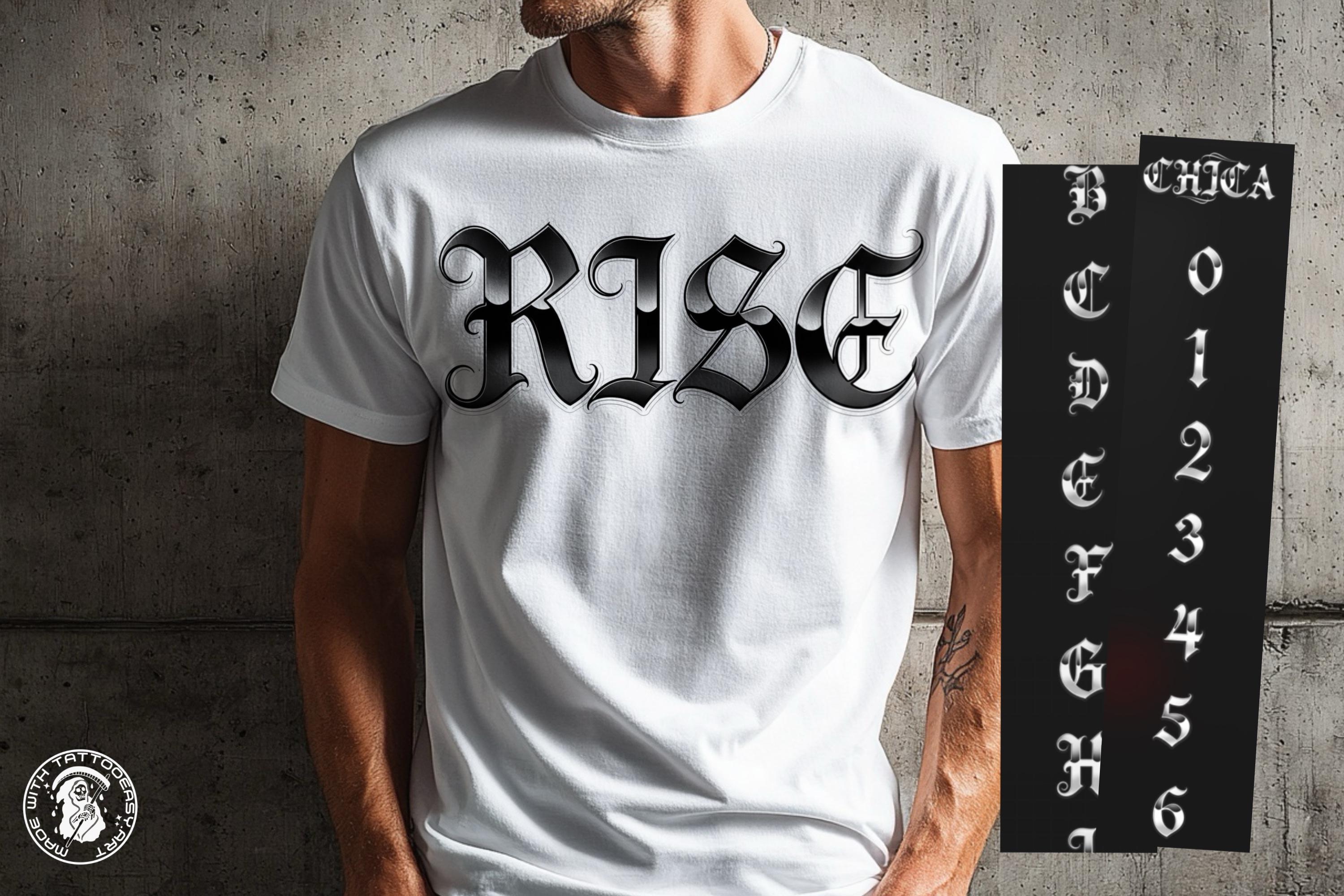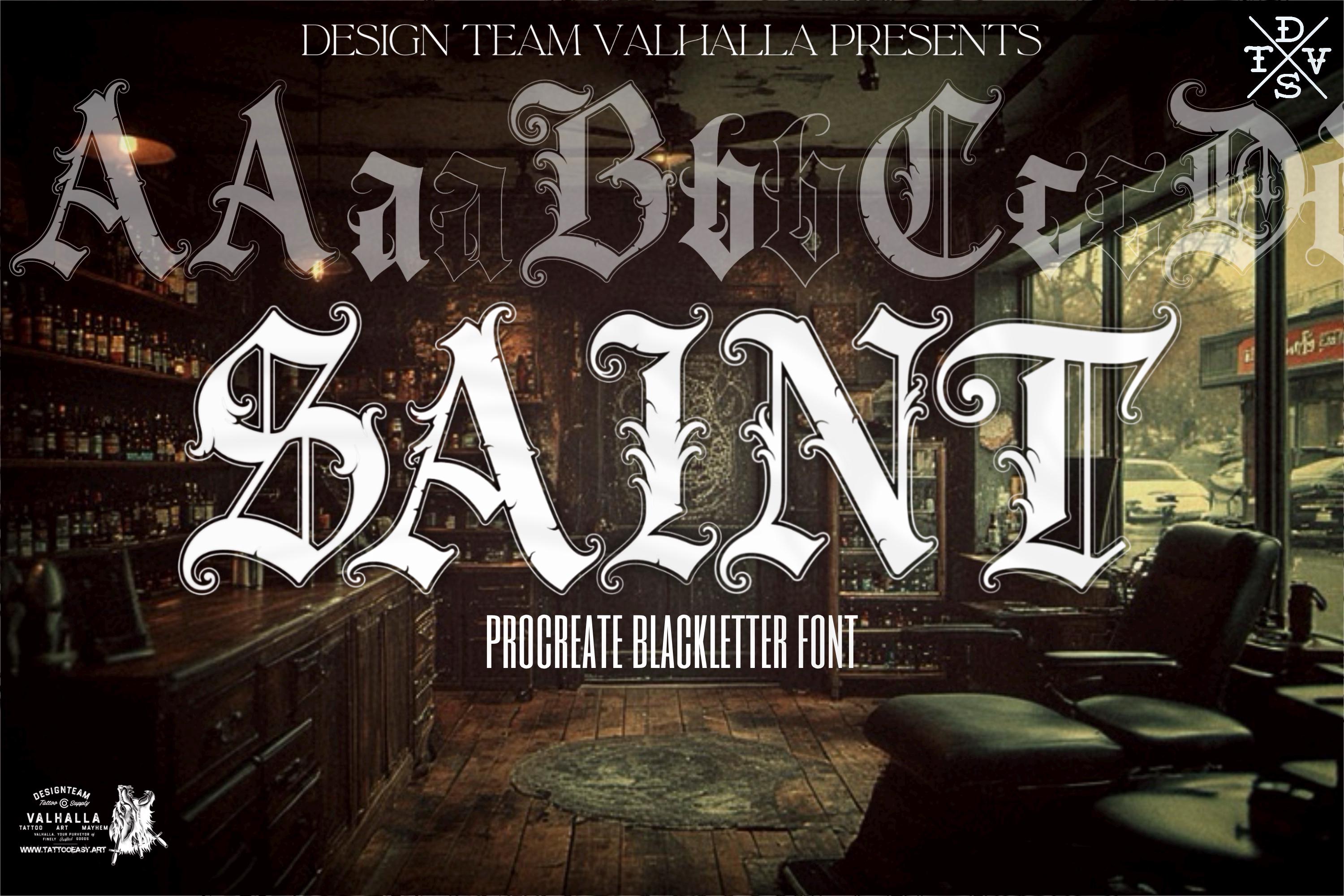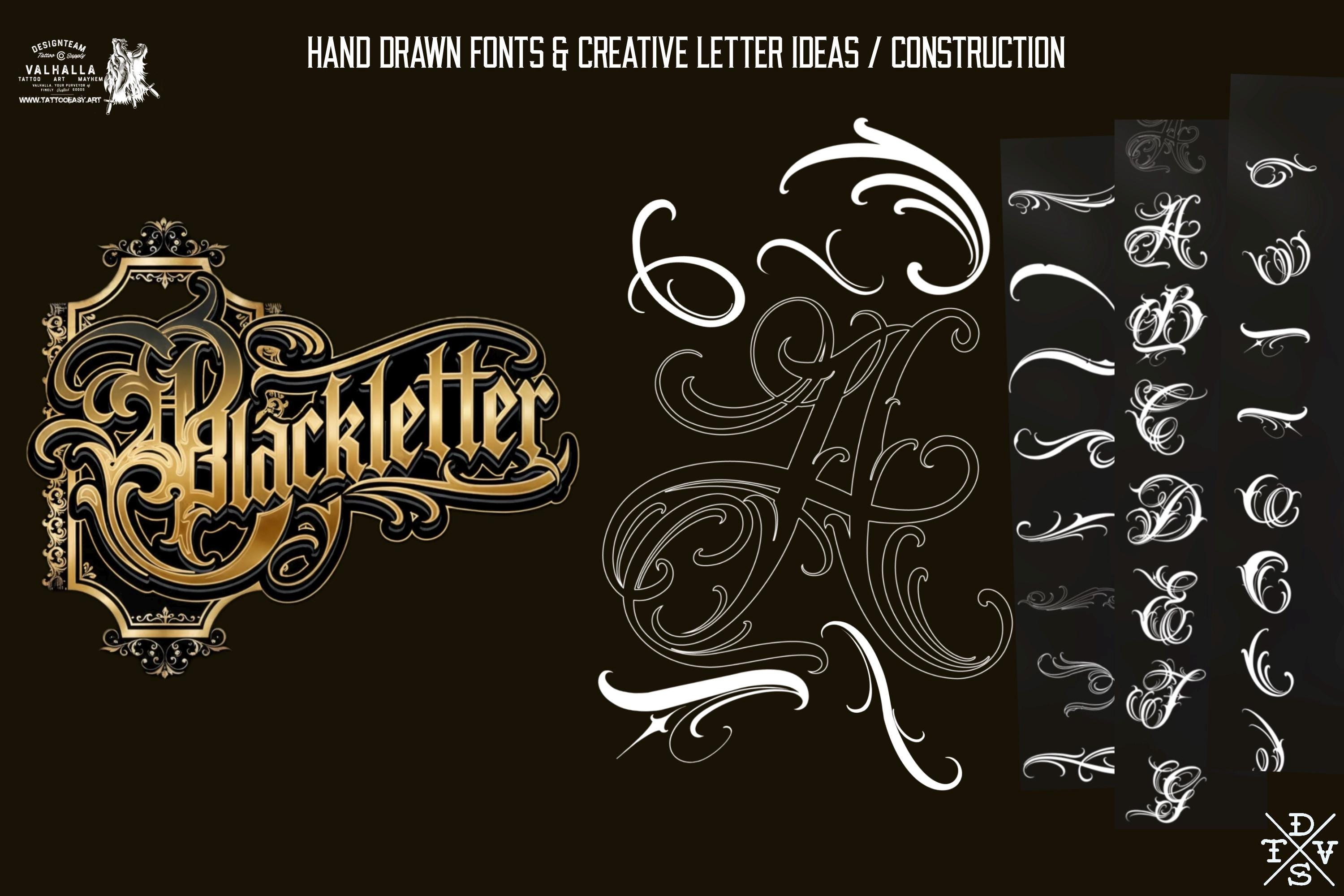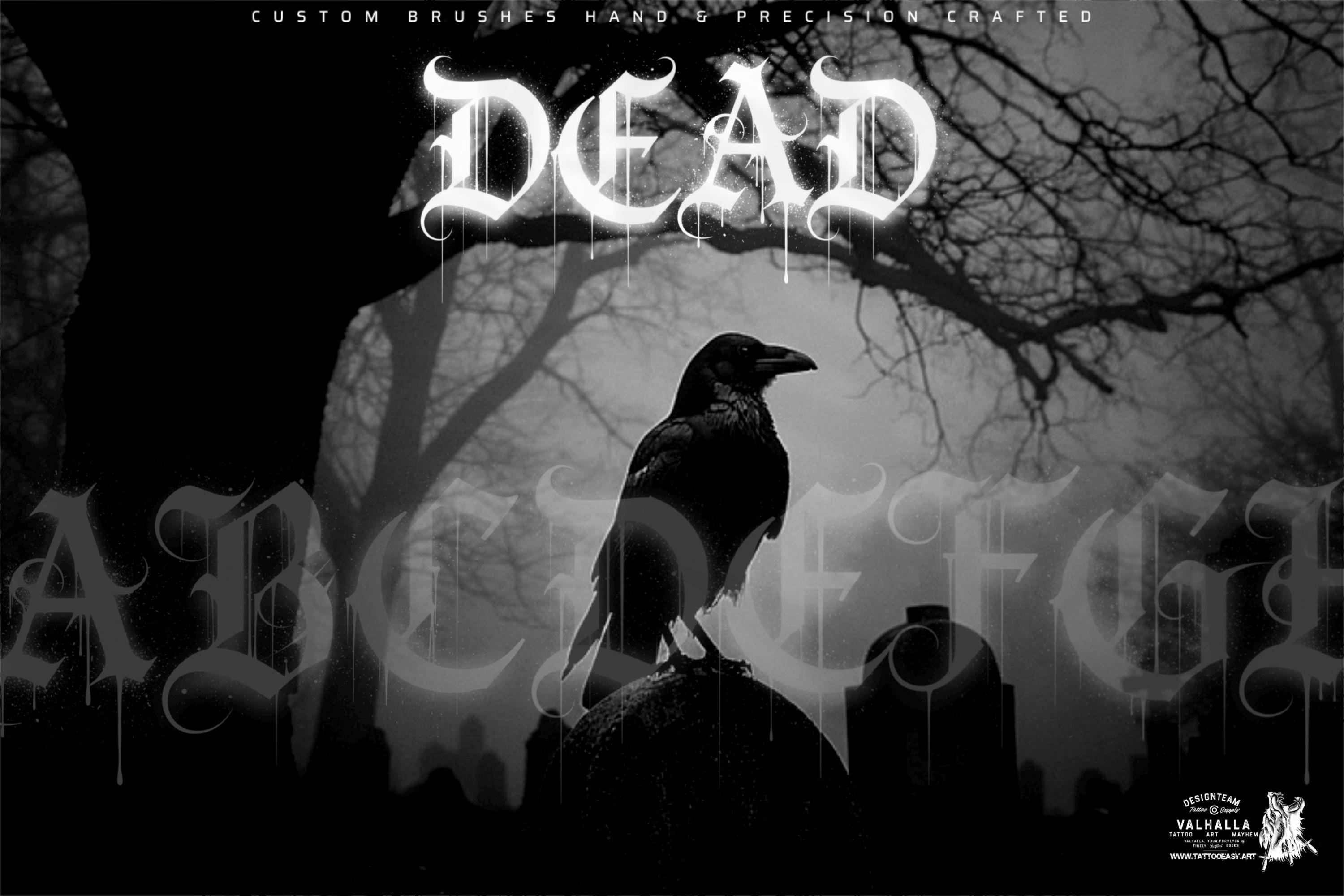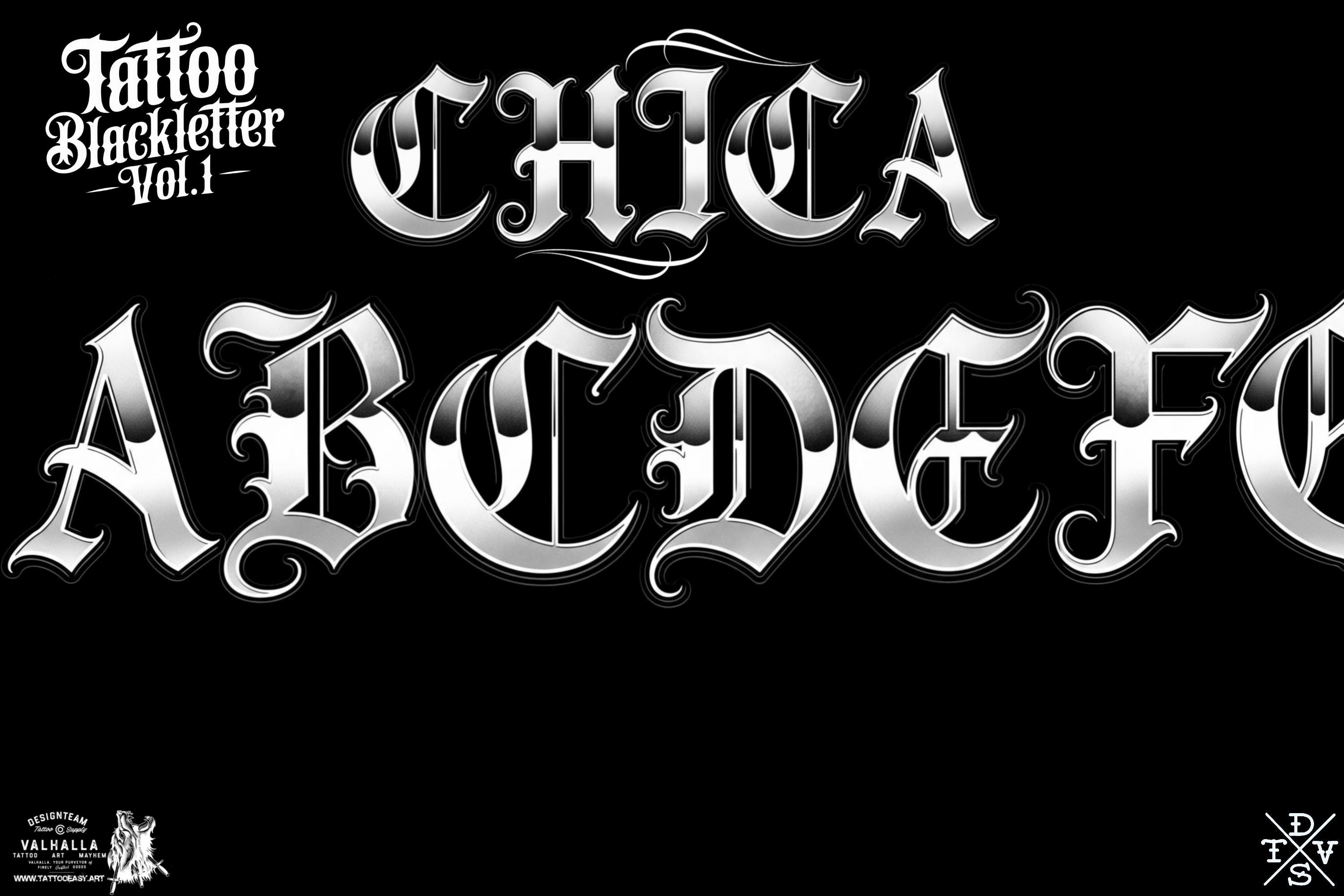
8 tattoo fonts, creative kit & text designs, Procreate Blackletter Stamps: Artists Lettering Bundle
Blacklettering for Procreate Vol.1 by @onI.Letterz - Design Team Valhalla, Sweden
40+ blackletter / chicano inspired text designs
Saint
Victory
Chica
Dead
Dominion
Metal
Poltava ( Dominion )
Cathedral
(+ capital letter ideas Chicano / Blackletter)
+Brushes & creative kit
Carefully crafted Blackletters made for Procreate to ensure the highest attention to detail. The complete alphabet—both uppercase and lowercase—is designed for effortless combination, making it easy for you to fuse letters seamlessly into your own unique pieces.